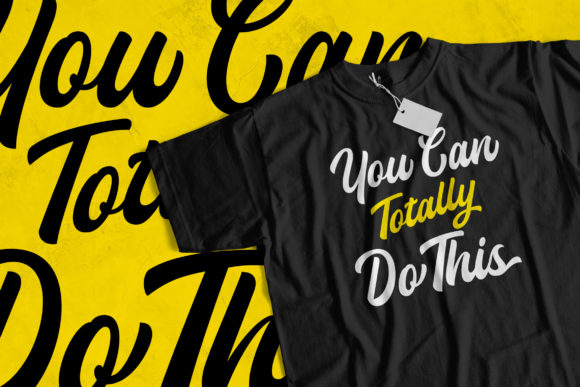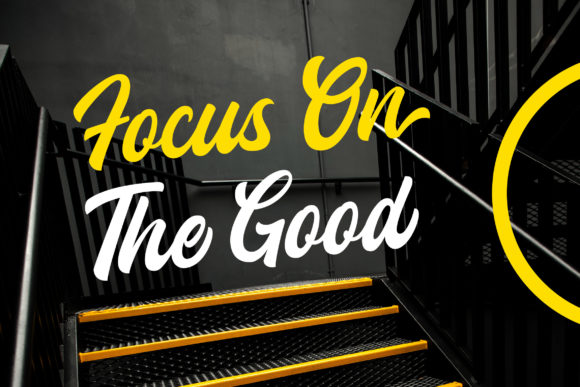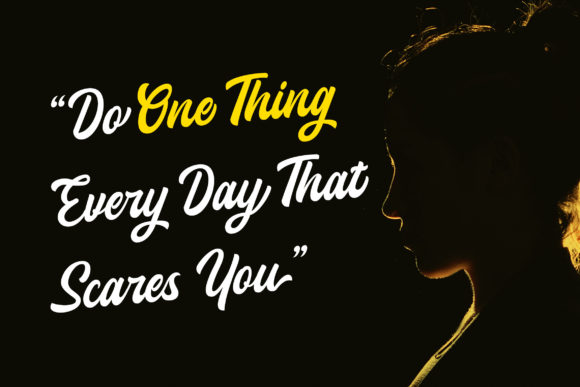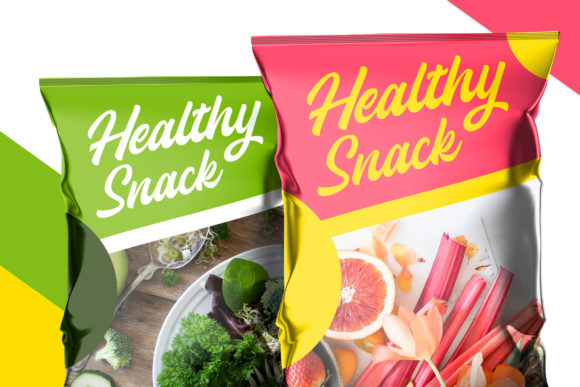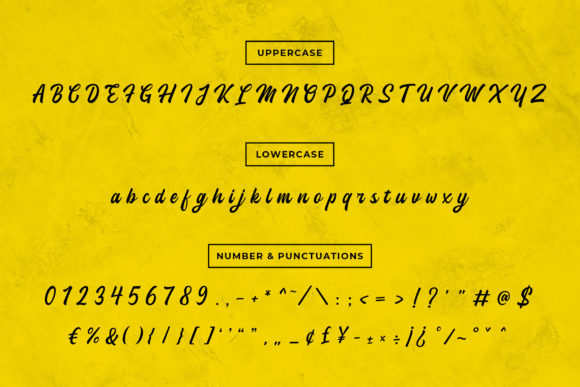
About Halaney Font
Halaney is a beautiful handwritten font. Halaney is very useful for craft or business purposes such as t-shirt design, logo, embroidery, craft design even publications like posters, banners, magazines, invitations, books, labels, or social media posts.